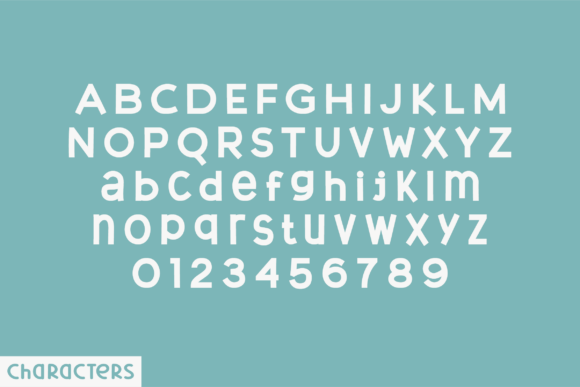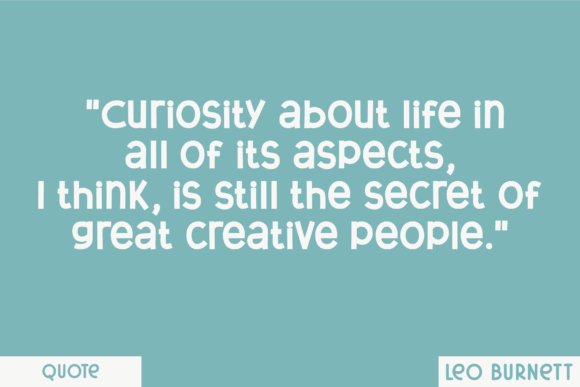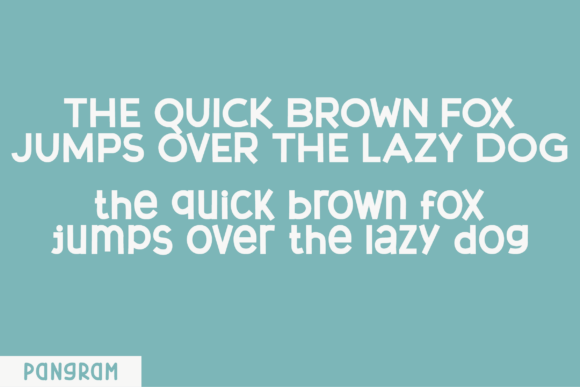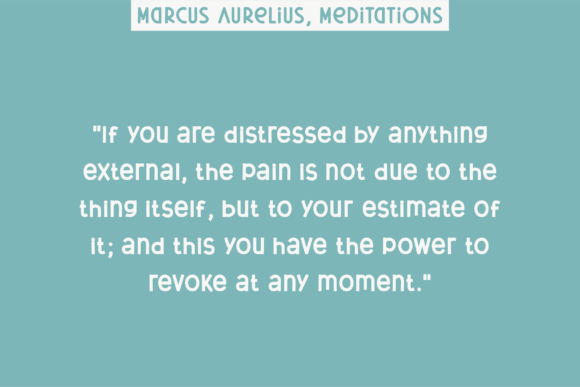
The Uniqueness of Blackie Font: A Designer’s Delight
I still remember the day I stumbled upon the perfect font for a client’s project. I had been searching for hours, trying out different fonts, but none seemed to fit the vibe I was going for. That’s when I discovered Blackie Font. Its unique charm and natural feel immediately caught my attention, and I knew I had found what I was looking for.
An Honest Review of Blackie Font
What I Love About Blackie Font
- ✨ Unique Character Indentation: Blackie Font’s most distinctive feature is that it hasn’t changed a single node in each character’s indentation, making it stand out from other fonts.
- ✅ Perfect for Quotes and Notes: The font’s natural feel makes it ideal for quotes, notes, and any design that requires a personal touch.
- ✅ Versatile: Blackie Font can be used for various design projects, from t-shirts to product design.
While Blackie Font is an excellent choice for many design projects, there are a few things to keep in mind:
- ⚠️ Limited Use in Formal Designs: Due to its unique character indentation, Blackie Font might not be the best choice for formal designs or projects that require a more traditional look.
- 🤔 Glyphs and OpenType Features: While Blackie Font supports OpenType features, it might not have an extensive range of glyphs or stylistic alternates, which could limit its use in certain projects.
The Designer Inspiration Behind Blackie Font
Blackie Font was created with the intention of providing a unique and natural font that could add personality to various design projects. The designer aimed to create a font that would stand out from the crowd, with a character indentation that would give designs a personal touch.
| Font Name | Blackie Font |
| Author | Hanna Bie |
Q: What makes Blackie Font unique?
A: Blackie Font’s unique character indentation sets it apart from other fonts, making it perfect for designs that require a personal touch.
Q: Does Blackie Font support OpenType features?
A: Yes, Blackie Font supports OpenType features, including glyphs and stylistic alternates.
Q: Can I use Blackie Font in digital designs?
A: Absolutely! Blackie Font is versatile and can be used in various digital designs, from social media graphics to website headers.